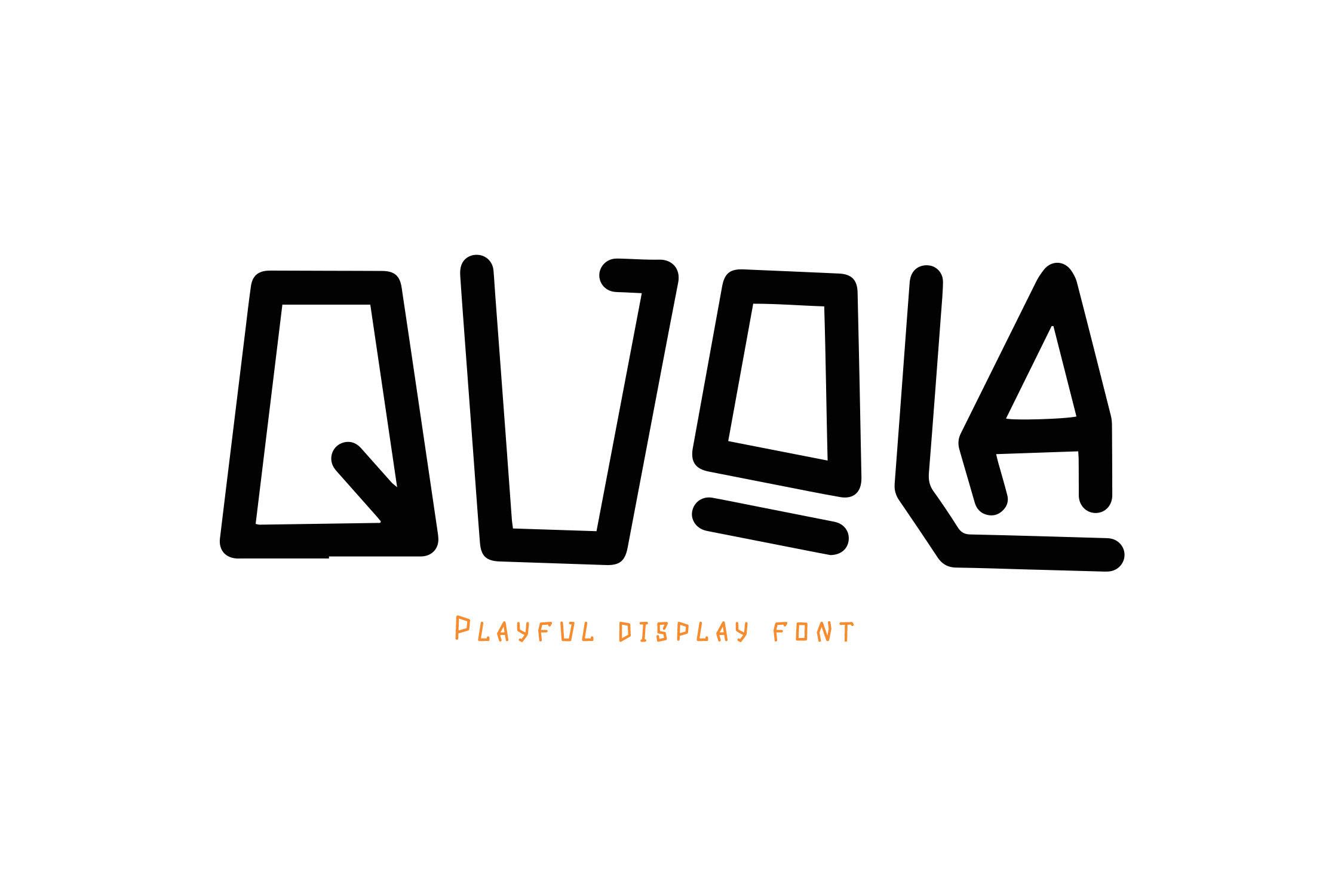
QUOLA Playful Font
QUOLA - Playful Monoline Font
QUOLA is a fun and playful monoline font designed to bring a unique touch to your creative projects. With its distinctive character shapes, this font adds a vibrant and attractive element to any graphic design. Whether you're working on branding, packaging, or any visual project, QUOLA is the perfect choice to elevate your design.
- Includes ligatures, and stylistic alternates